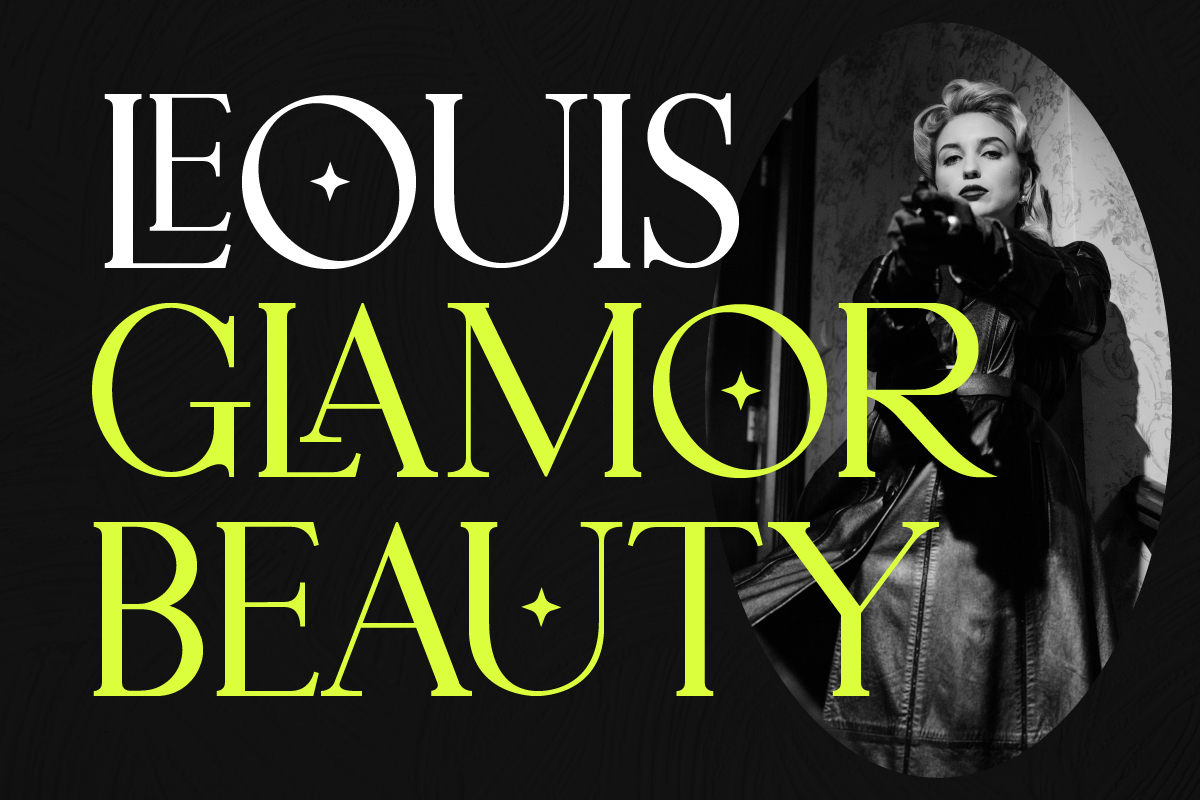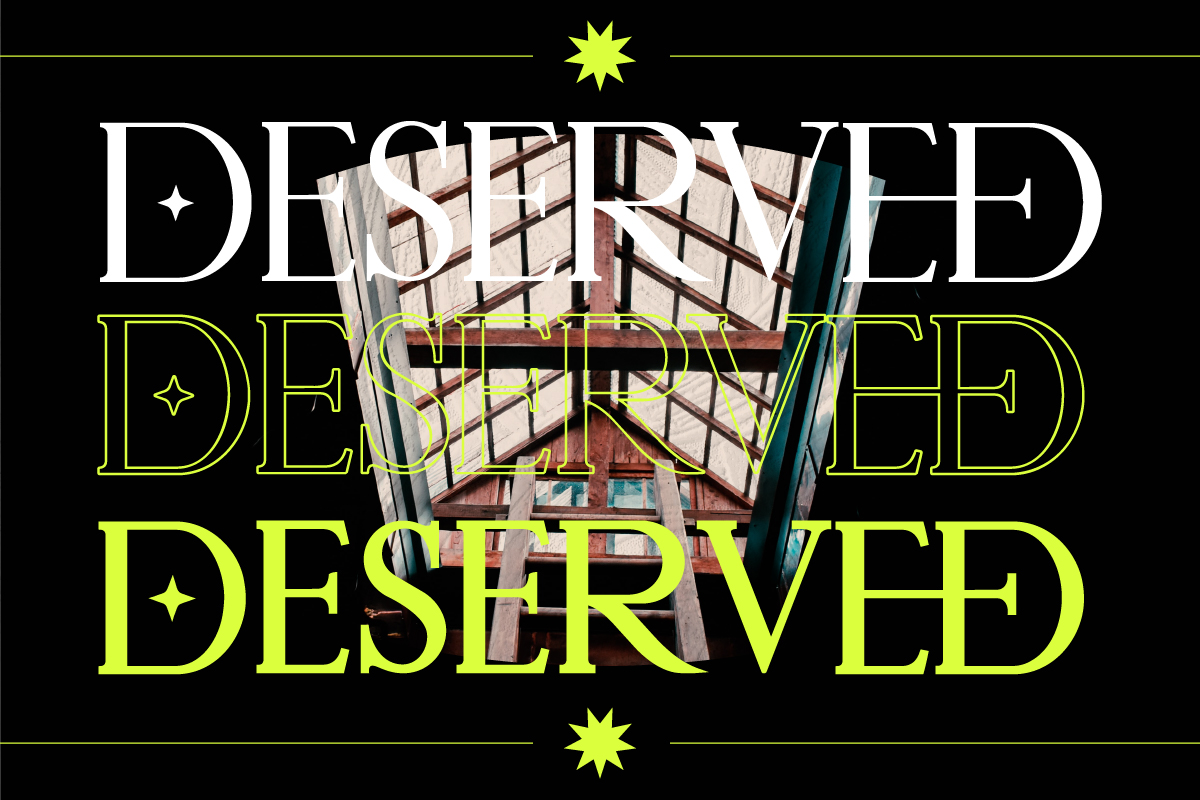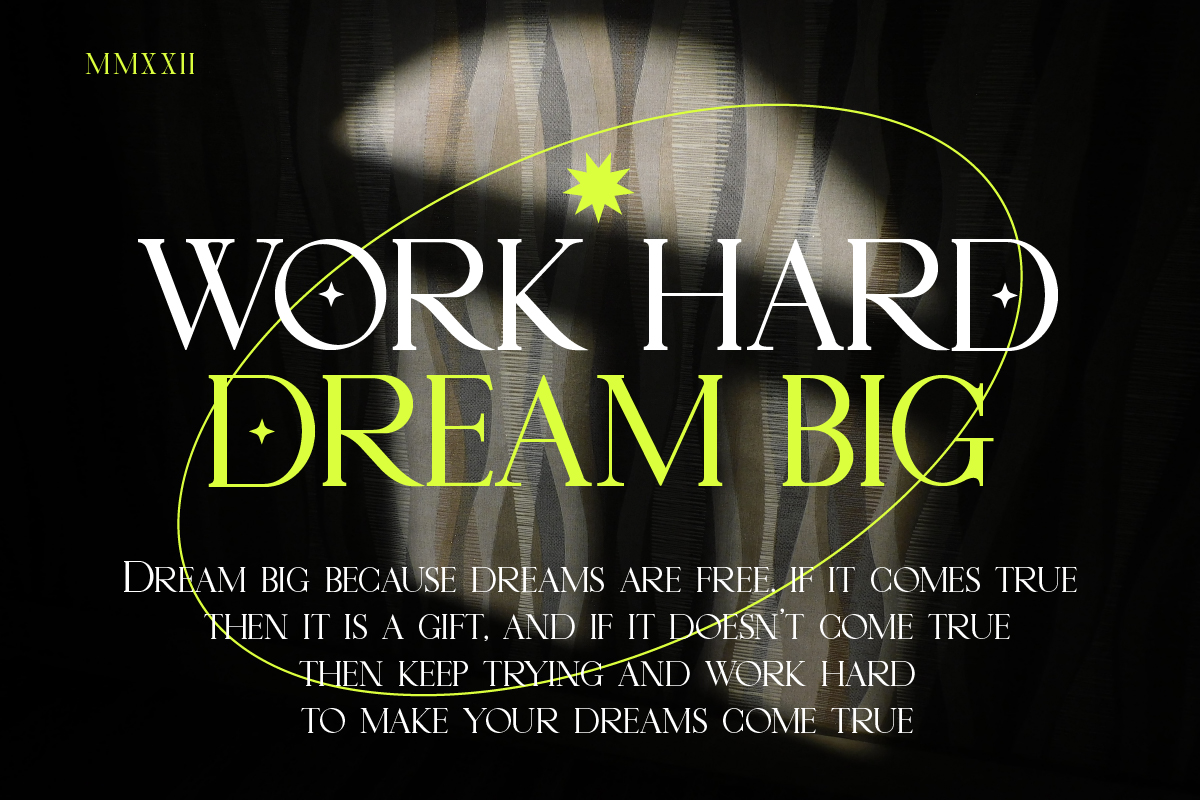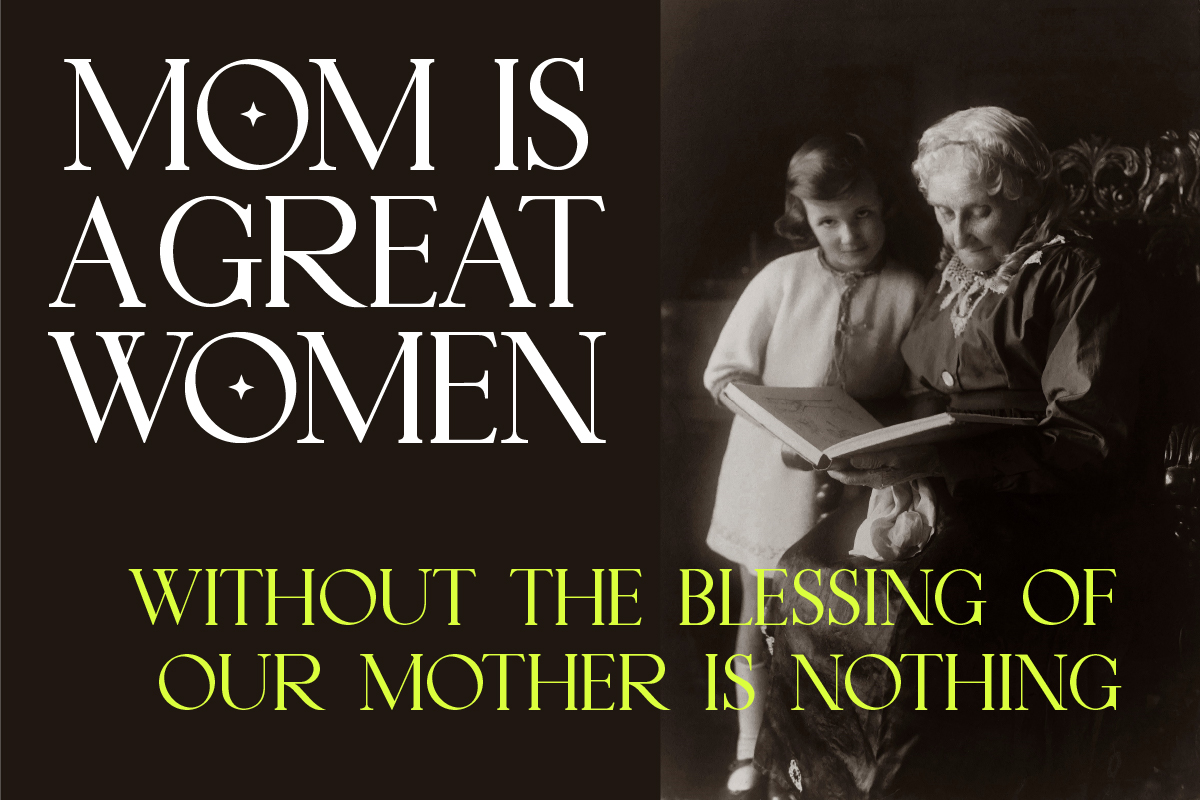
Midtown Groveed Font
Midtown Groveed Font is an elegant classic serif typeface. A simple font, with a thin size, adds an elegant and classy impression. This typeface is perfect for elegant logos, branding, travel promotions, layout magazines, beauty products, product packaging, quotes, or simply as a stylish text overlay onto any background image.